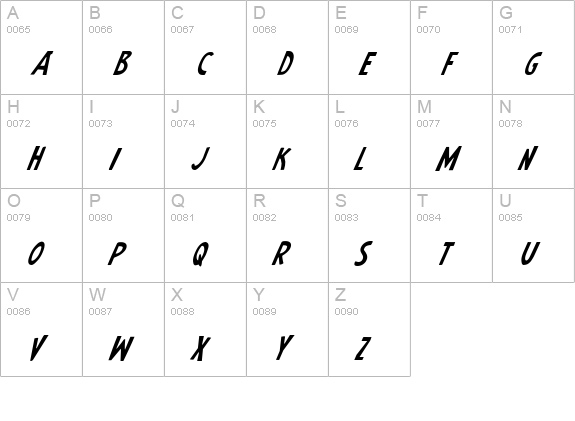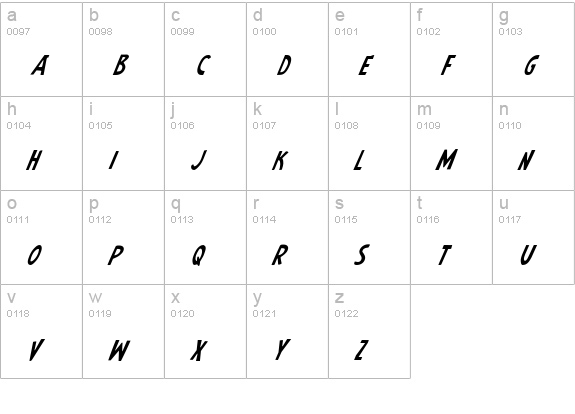
Earth's Mightiest Italic Font Details
Earth's Mightiest Italic is a distinctive, italic variant in the Earth's typeface family \xE2\x80\x94 well suited to design and typography projects.
Introducing Earth's Mightiest Italic, a font that embodies the strength and power of the mightiest heroes the world has ever known. With its bold and dynamic design, this font commands attention and exudes a sense of confidence and authority. Earth's Mightiest Italic is the perfect choice for those seeking to make a statement, whether it be on posters, logos, or any other design project that requires a touch of heroism. Its sleek and slanted characters create a sense of movement and action, adding an extra layer of excitement to your visuals. But what truly sets Earth's Mightiest Italic apart is that it is not only a font of unparalleled style and impact, but it is also free. Yes, you read that right! This amazing font is freely available to download at FontsMarket.com, ensuring that everyone has access to its impressive capabilities. Now, you can unleash your creativity without any limitations or financial constraints. Whether you are a professional designer or a passionate hobbyist, Earth's Mightiest Italic provides you with the tools you need to bring your vision to life. So why wait? Head over to FontsMarket.com and experience the power of Earth's Mightiest Italic for yourself. Download it today and let your designs soar to new heights, imbued with the strength and might of the planet's greatest heroes.